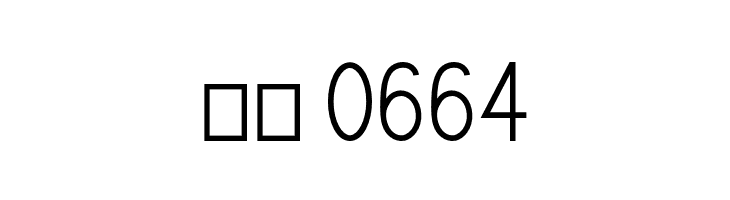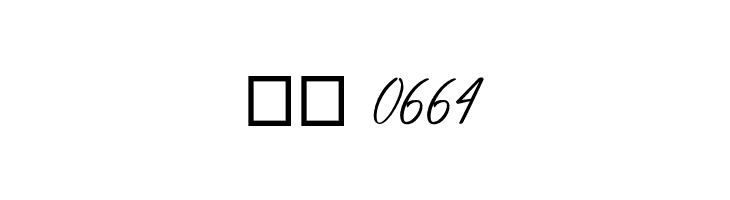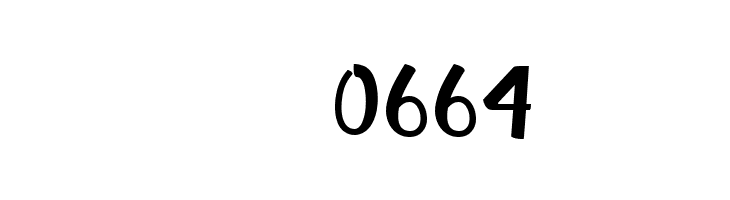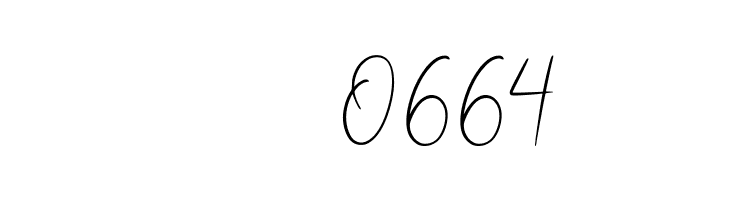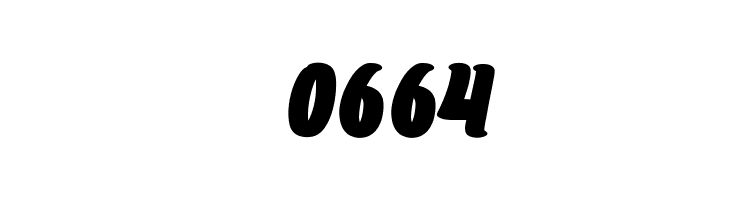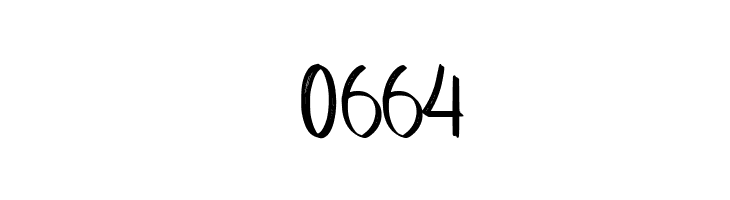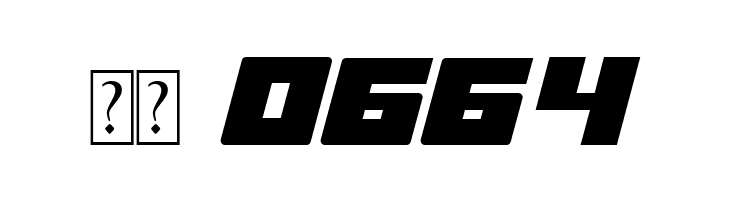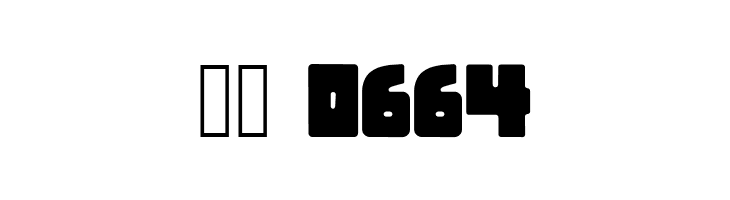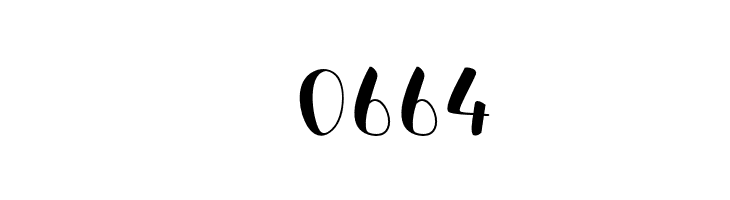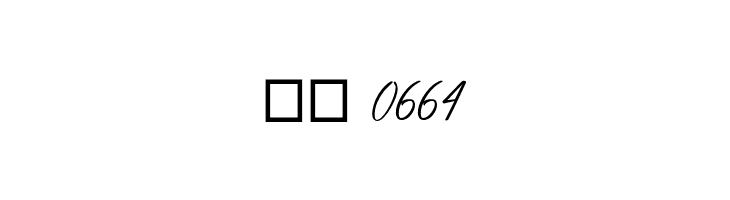
A bold, distressed font with a vintage, rugged appearance.
A bold, rounded, and playful font with consistent stroke width.
A bold, dynamic script font with flowing curves and decorative swashes.
A bold, flowing script font with elegant curves and dynamic strokes.
A flowing, elegant script font with dynamic curves and loops.
An elegant, flowing script font with bold, expressive uppercase and smooth lowercase letters.
A playful, handwritten font with bold, rounded strokes and a whimsical style.
A bold, angular font with a modern, dynamic style.
A bold, geometric font with strong, uniform strokes and a modern aesthetic.
A bold, geometric font with a modern and futuristic style.
A modern, elegant script font with flowing, cursive letterforms.
A graceful script font with flowing, connected strokes and a modern calligraphic style.
A bold, rounded font with a playful and dynamic style.
A bold, decorative font with geometric shapes and artistic flair.
A graceful script font with fluid, connected strokes and a handwritten style.
A bold, expressive script font with flowing cursive letterforms.
An elegant script font with flowing, interconnected letters and high contrast.
A fluid, elegant handwritten font with a dynamic and personal touch.
An elegant script font with flowing, cursive letterforms and delicate flourishes.
A bold, geometric font with a playful yet assertive style.
A bold, angular font with a futuristic and dynamic style.
A playful, hand-drawn font with elongated strokes and a whimsical touch.
A dynamic, expressive handwritten font with fluid, elongated strokes.
A delicate, flowing script font with elegant, continuous lines.
A playful, hand-drawn font with a casual and whimsical style.
A playful, school-themed handwritten font with doodle-like illustrations.
A playful, handwritten font with a casual and lively style.
A playful, handwritten script font with a casual and whimsical style.
A whimsical and fluid script font with a hand-drawn appearance.
A pixelated, dot matrix font with a digital and retro aesthetic.
A pixelated, italic font with a digital, modern style.
A digital, pixelated font with outlined squares for a modern tech look.